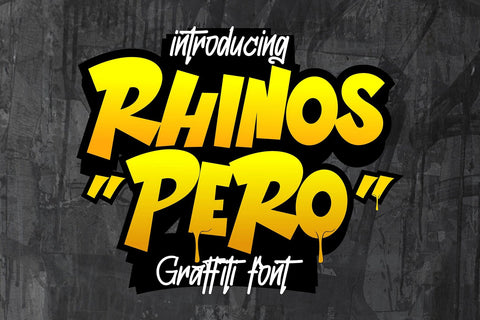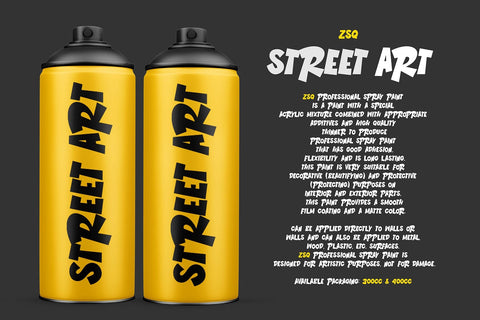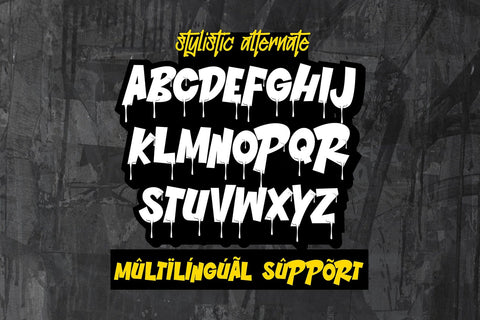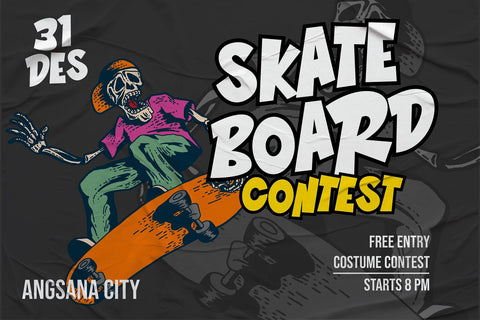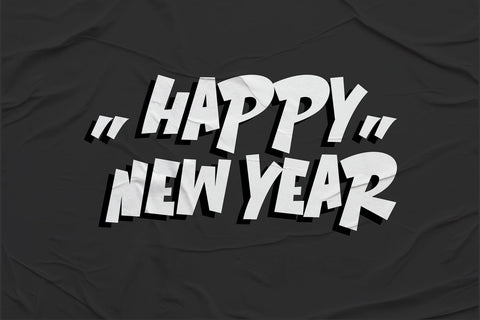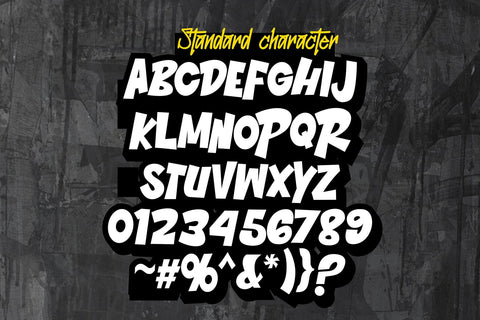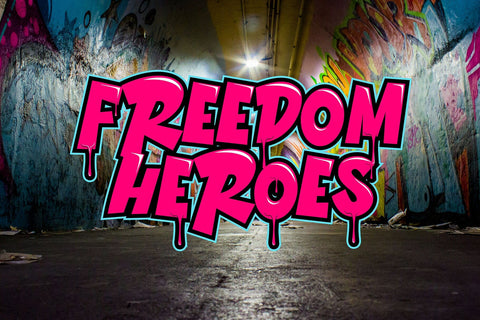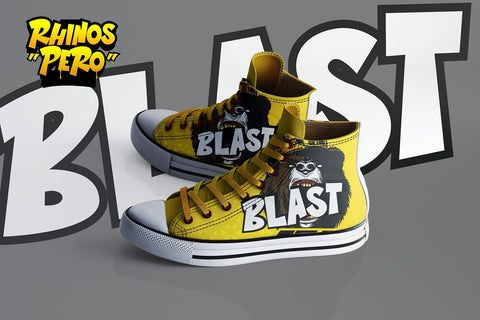
Rhinos Pero - Quirky Graffiti Font
"Rhinos Pero" is a quirky graffiti font that embodies a playful and unconventional style. Fonts in this category often feature eccentric and unique letterforms, incorporating creative elements that deviate from traditional typographic norms. This particular font might showcase irregular shapes, whimsical characters, or unconventional design traits, offering a distinct and unconventional appearance.
- Graffiti Characters looks